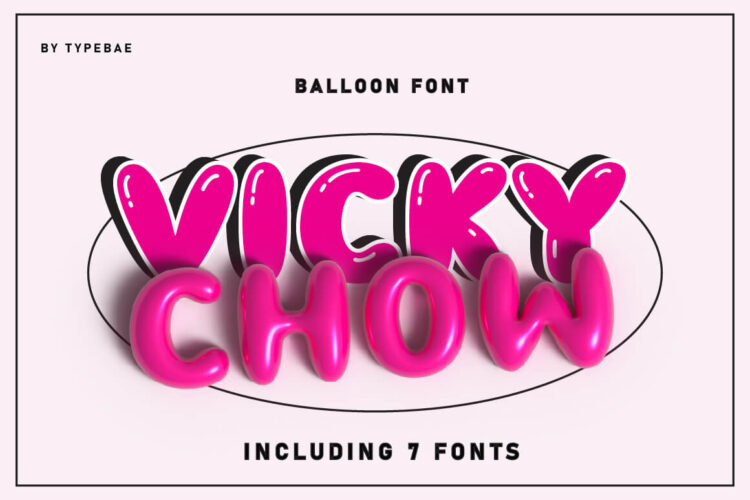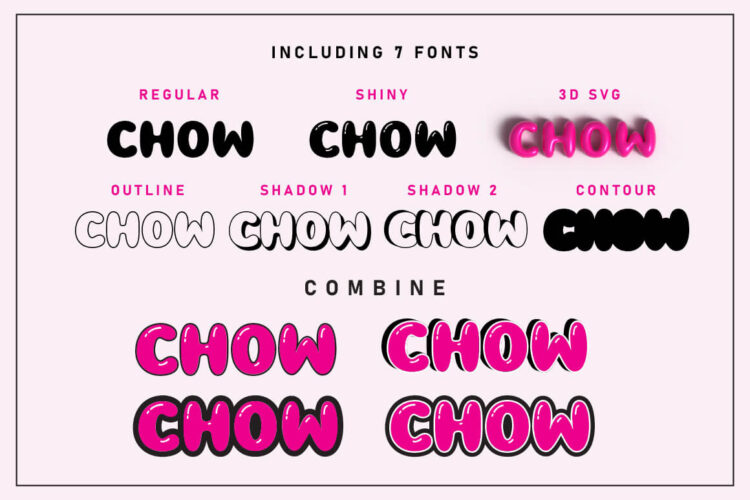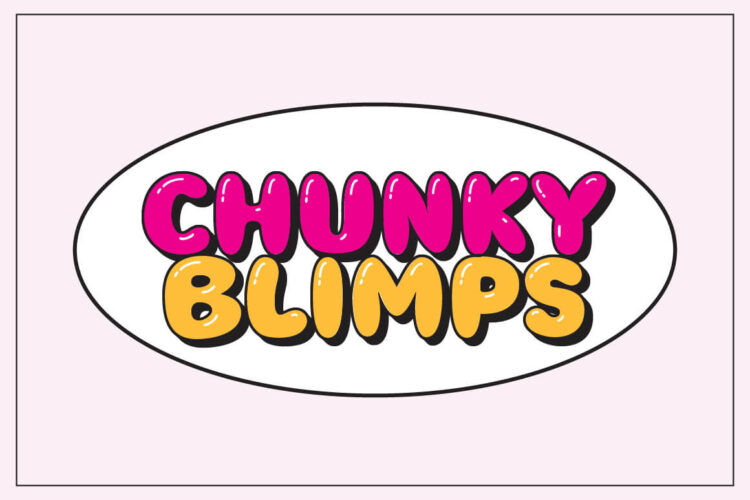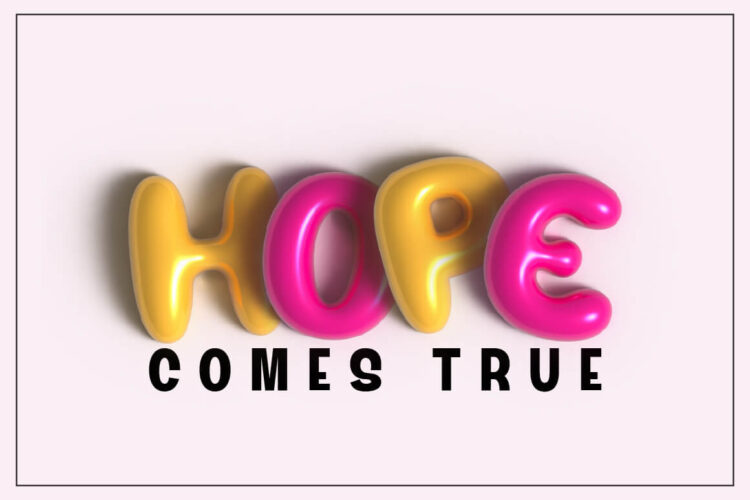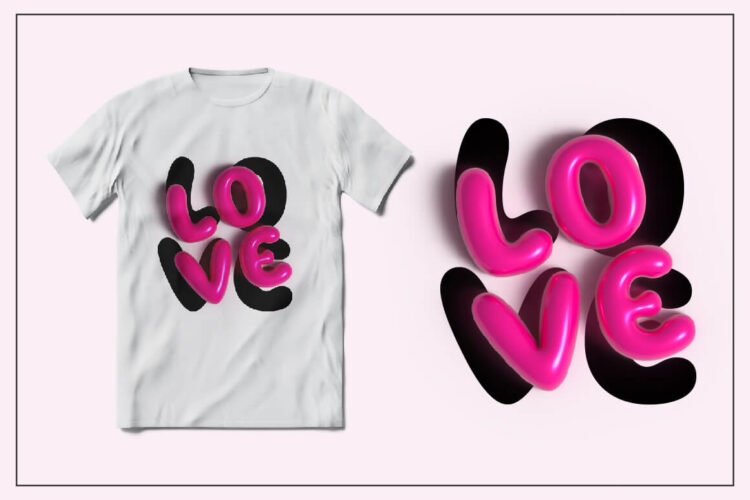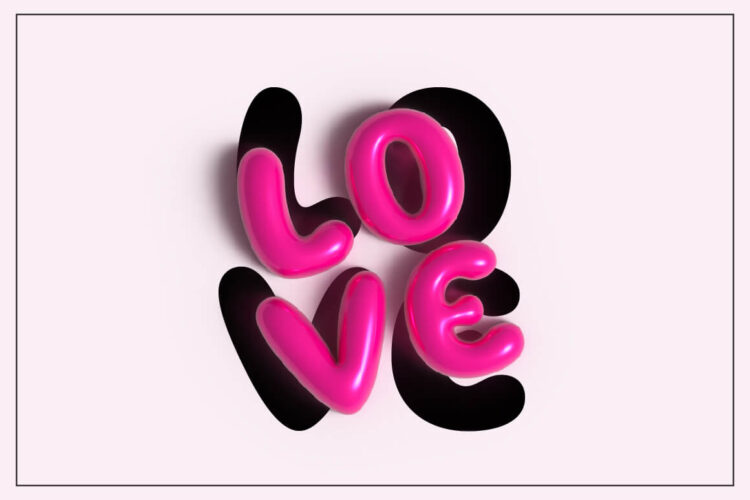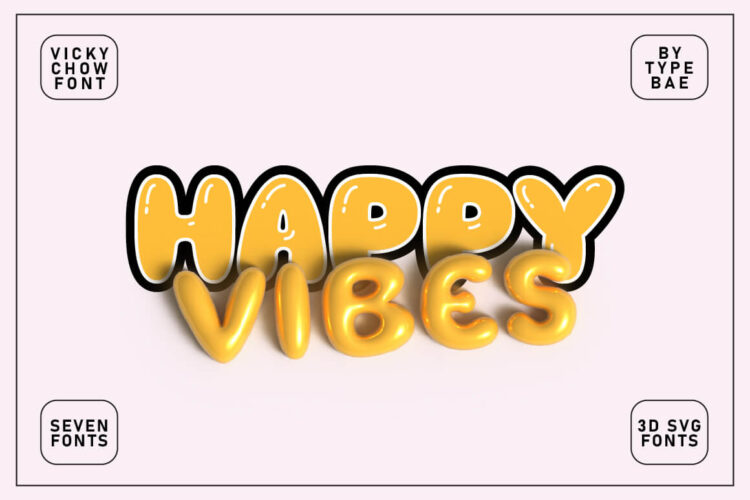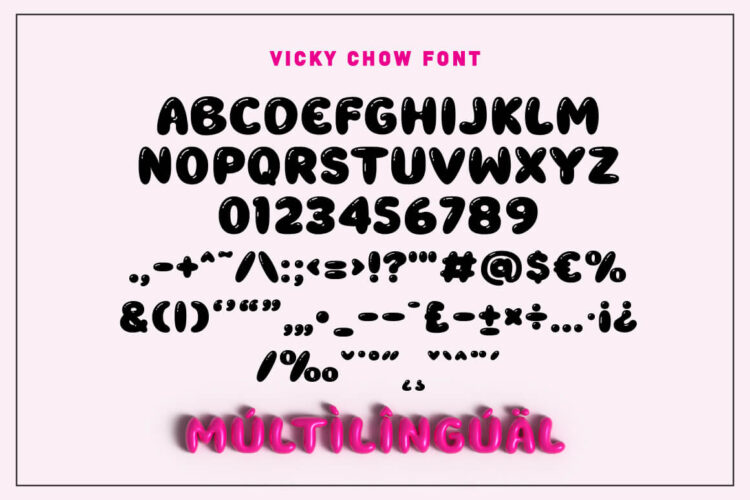
Vicky Chow is a cute and adorable chubby 3D balloon font that will fill your design with cheerfulness! It’s great for various design themes that require a cheerful and prominent impression.